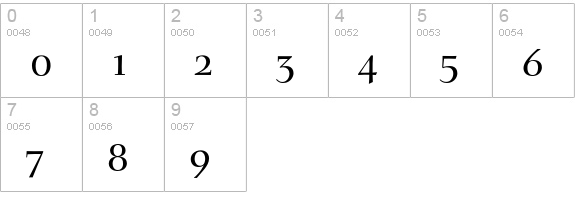
Nofret Expert BQ Regular Font Details
Nofret Expert BQ Regular is the standard, neutral variant in the Nofret typeface family \xE2\x80\x94 well suited to general body text, paragraphs, and standard typographic work.
Nofret Expert BQ Regular font is a timeless and elegant typeface that exudes sophistication and readability. With its clean lines and classic design, this font is perfect for a wide range of design projects, from branding and marketing materials to editorial content and signage. What sets Nofret Expert BQ Regular font apart is its versatility and ease of use. Whether you're looking to create a sleek and modern look or a more traditional and refined aesthetic, this font has you covered. Its balanced letterforms and subtle details make it a standout choice for any project. The best part? Nofret Expert BQ Regular font is available for free download at FontsMarket.com. So go ahead and add this beautiful font to your collection today and elevate your designs with its timeless appeal.